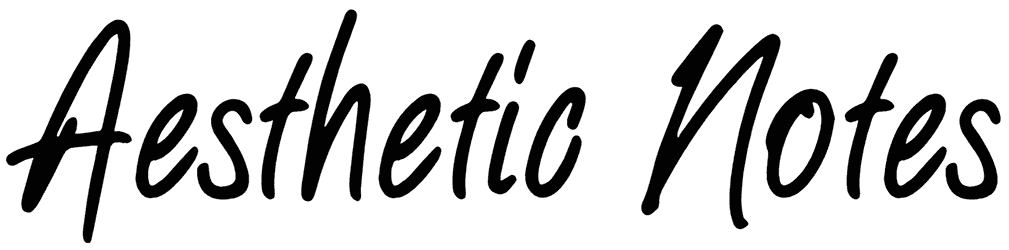
Aesthetic Notes Font
Aesthetic Notes font is here to give the designs and writings of your notebooks and scrapbooks or even daily memories a different look and sense to be more personal.